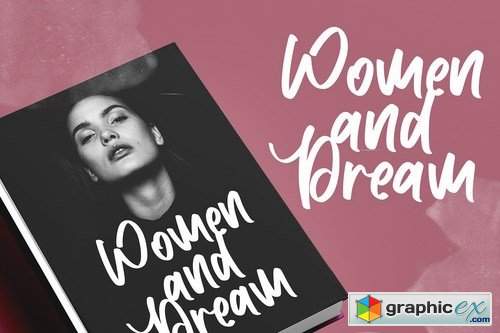
Famillya Handwritten Font
Famillya | Handwritten Font with a calligraphy style, So beautiful on invitation like greeting cards, branding materials, business cards, quotes, posters, and more!